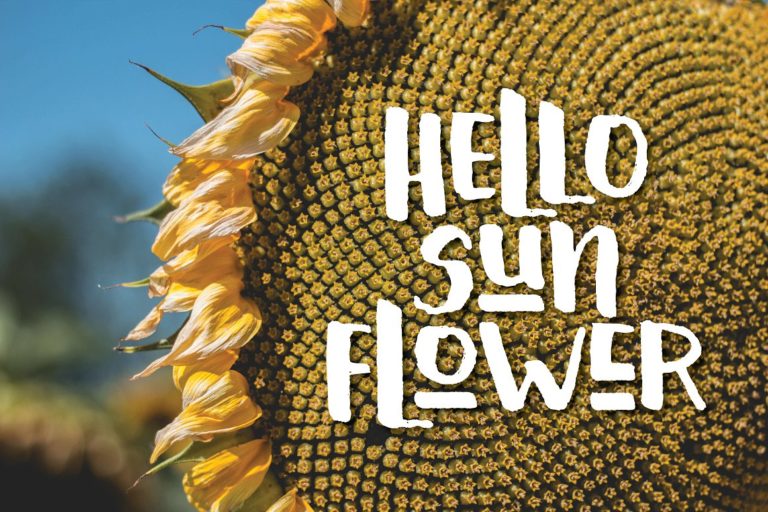
Hello Cute Typeface
This free font package is a modern font brush. Introducing Hello Cute Font . It is designed by Atjcloth Studio. Hello Cute a handmade font awesome, new fresh & modern style. Can used for anything from promotional material and handwritten quotes, to product packaging, labels, logo newsletters, posters, merchandise and branding projects.